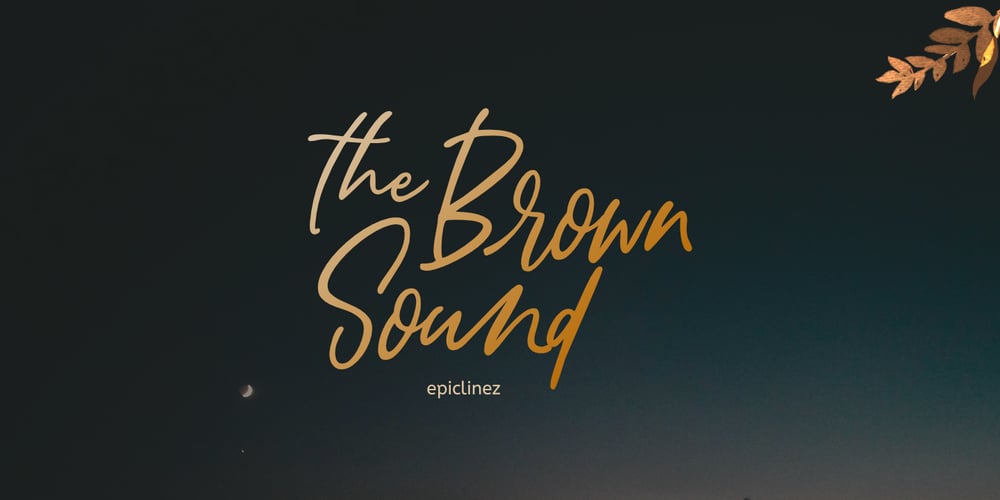
Brown Sound Font Family was designed by Aldy Sidik and published by Epiclinez. Brown Sound contains 1 styles and family package options. The Brown Sound is an authentic signature script font. This handwritten beauty is suitable for high-end, sophisticated branding, movie poster, album cover or for simple, memorable Instagram quotes.